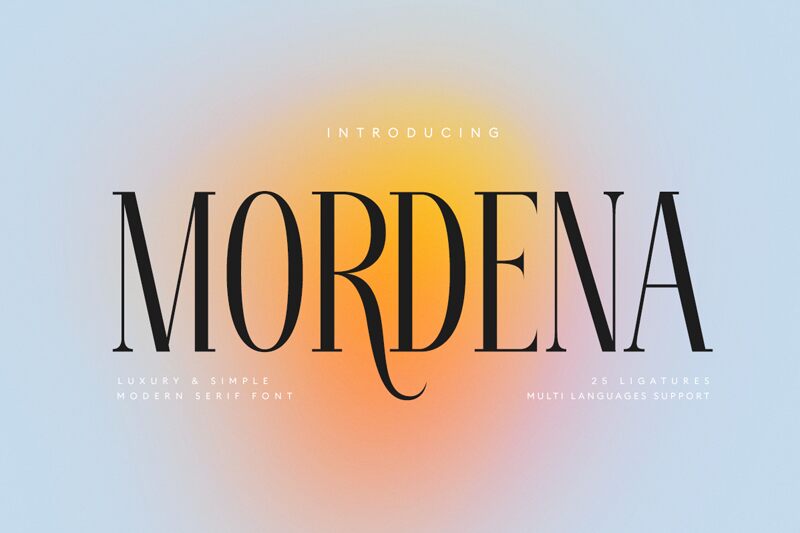
Mordena font by Scratch Design is a free font that exudes an elegant and sophisticated charm. This modern serif font merges classic and contemporary styles, offering a luxurious and high-end feel. Its refined appearance is perfect for projects that demand a formal yet stylish touch.
The font is ideal for branding, logo design, and packaging where a polished look is desired. Use it in wedding invitations, high-end editorial layouts, upscale brochures, or fashion campaigns. Mordena also shines on websites, social media graphics, and book covers.